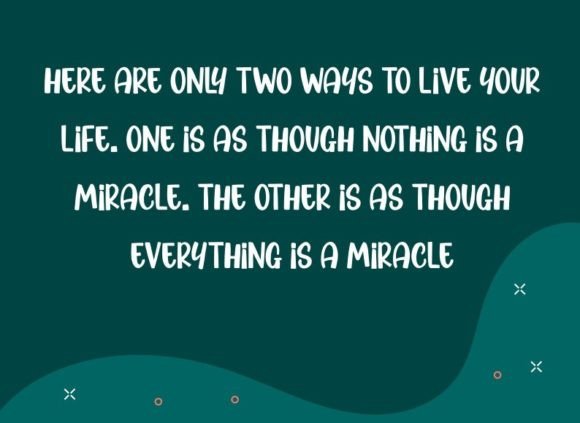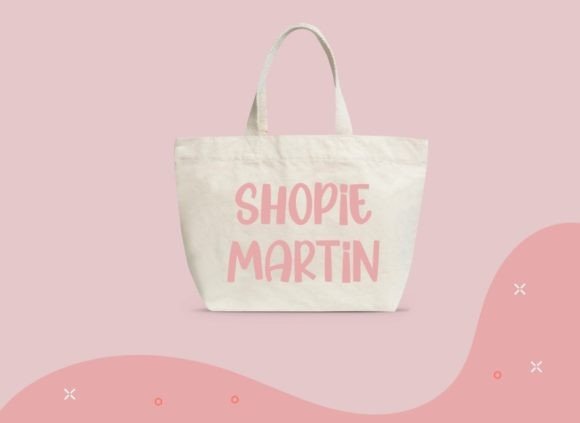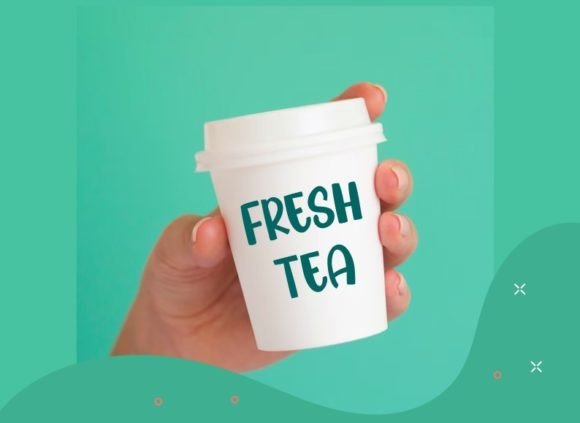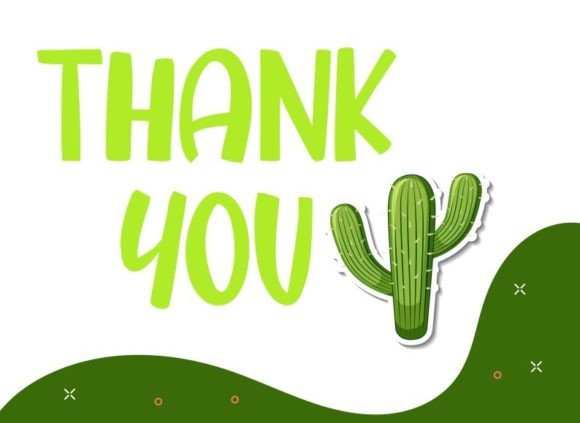
Discover the Perfect Blend of Fun and Elegance with the Dacon Font
As designers, we’ve all been there – staring at a blank canvas, searching for that one element to bring our creative vision to life. And then, it hits us – a burst of inspiration that sets our imagination ablaze. For me, it was a chance encounter with the charming Dacon Font. Its smooth curves and playful style instantly captured my attention, and I knew I had to learn more.
The Dacon Font is a delightful display font that’s perfect for fashion branding or editorial designs. Its whimsical and quirky nature adds a touch of personality to any project, making it a valuable asset for designers looking to add some visual flair to their work. Whether you’re working on a fashion magazine or a boutique website, the Dacon Font is sure to bring a smile to your client’s face.
Dacon Font Key Features
- Font Family: Dacon Font is a sans-serif font family designed for digital use.
- Size: The font family includes various weights, ranging from Extra Light to Extra Bold, with 8 weights in total.
- Unique Characteristics: Dacon Font features a modern and clean design, with a focus on legibility and readability in digital environments.
Dacon Font Review
Overall, I found the Dacon Font to be a decent addition to any designer’s toolkit. Here are some things that worked well for me:✨
- Unique Character: Dacon Font has a distinctive and quirky personality that can be quite engaging.
- Customizability: It offers a range of font weights and styles that can be used to create a variety of effects.
- Legibility: Despite its unique appearance, the font remains relatively easy to read, even at smaller sizes.
However, I did encounter some limitations that might make it less suitable for certain projects:⚠️
- Limited Compatibility: Dacon Font may not be compatible with all operating systems or devices, which can be a problem if you need to share files or collaborate with others.
- Over-Use: The font’s unique style can become overwhelming if overused, which may make it less suitable for longer blocks of text.
Overall, I would recommend Dacon Font for designers looking for a bold, attention-grabbing font for specific projects or elements. However, it may not be the best choice for large blocks of text or projects that require broad compatibility.
Common Use Cases for Dacon Font
Dacon Font is ideal for:
1. Creating visually appealing posters and flyers
2. Designing engaging presentations and documents
3. Adding a touch of elegance to digital products and websites
Alternatives to Dacon Font for Designers
1. Arial
Arial is a sans-serif font designed by Robin Nicholas and Patricia Saunders. It is a popular choice for body text and is known for its clear and readable design. Use Arial when you need a clean and simple font for large blocks of text.
Arial is similar to Dacon Font in that it is a sans-serif font, but it has a more neutral and less playful feel. While Dacon Font has a unique, hand-drawn feel, Arial is more traditional and versatile.
Lato is a sans-serif font designed by Łukasz Dziedzic. It is a modern and elegant font that is well-suited for titles and headings. Use Lato when you need a font that is both stylish and readable.
Q: What is the recommended font size and line height for the Dacon Font?
The recommended font size for the Dacon Font is between 12pt and 18pt, depending on the design application and intended use. The recommended line height is between 1.2 and 1.5 times the font size, to ensure optimal readability and visual flow.